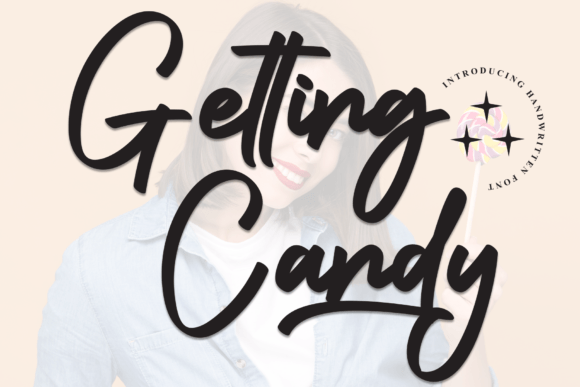
Journey into a world of captivating charm and exquisite elegance with Getting Candy - the enchanting script font family that will ignite your creative spirit. Prepare to be amazed as this font transforms your designs into masterpieces, leaving an unforgettable impression on your audience. Its meticulously crafted characters exude a touch of delightful whimsy, making it the perfect choice for adding a personal touch to your projects.
As a script font brimming with versatility, Getting Candy effortlessly adapts to a diverse range of design endeavors. Whether you're crafting heartfelt wedding invitations, designing eye-catching logos, creating personalized branding materials, or simply adding a touch of flair to your social media posts, this font is your ultimate companion. Its playful nature perfectly complements the beauty of handwritten notes, allowing you to express your individuality in a captivating manner.
Unleash your creativity and let Getting Candy take you on an artistic adventure. Its remarkable ability to capture the essence of handwritten signatures makes it ideal for creating logos and branding elements that radiate authenticity and personality. Imagine your logo adorned with the graceful strokes of Getting Candy, leaving a lasting impression on your customers and setting you apart from the competition.
With Getting Candy at your disposal, the possibilities are endless. Its delightful charm adds a touch of sweetness to invitations and greeting cards, making them irresistible to recipients. Design stunning posters and flyers that demand attention, captivating audiences with their unique and alluring appearance. Let your social media presence shine with the magic of Getting Candy, transforming your posts into visually stunning works of art that engage and captivate your followers.
Experience the magic of Getting Candy today and embark on a creative journey like never before. Allow its enchanting characters to infuse your designs with a touch of elegance and charm, creating a lasting impact that will leave your audience spellbound. Seize the opportunity to make your designs sing with the beauty of handwritten artistry. Welcome Getting Candy into your creative arsenal and unlock a world of endless possibilities.